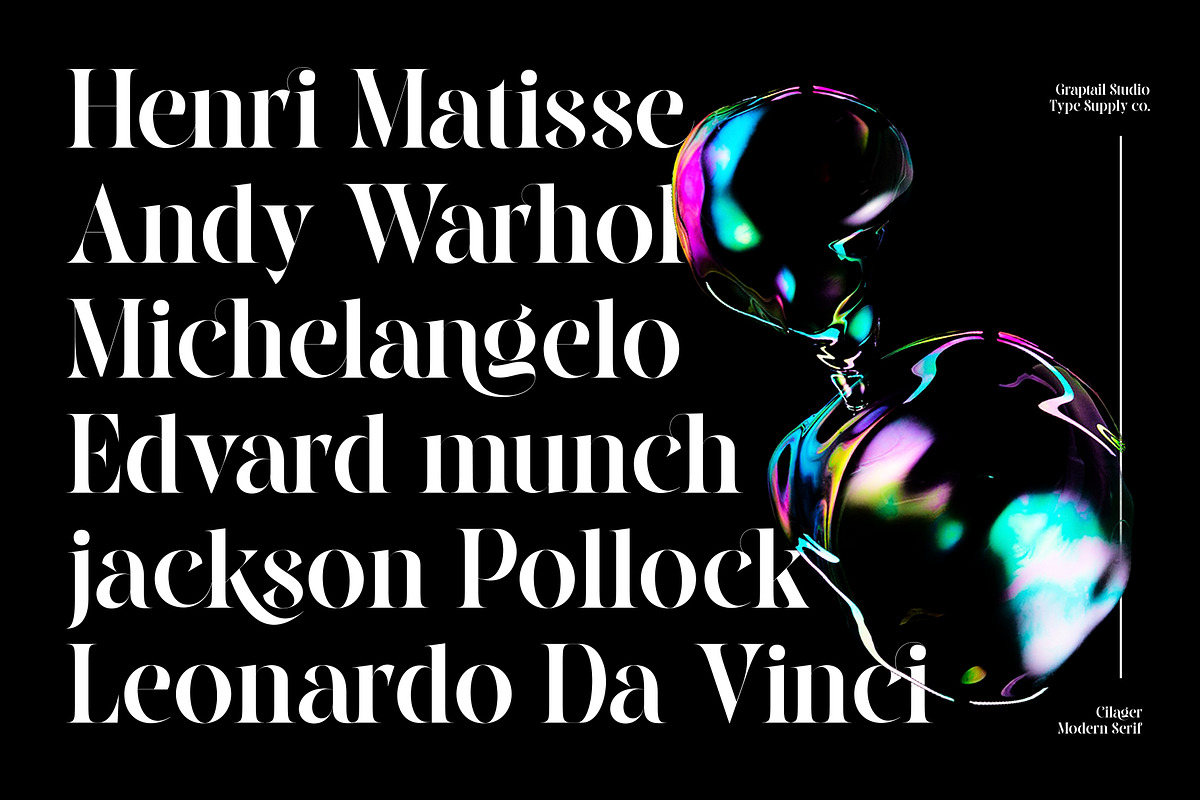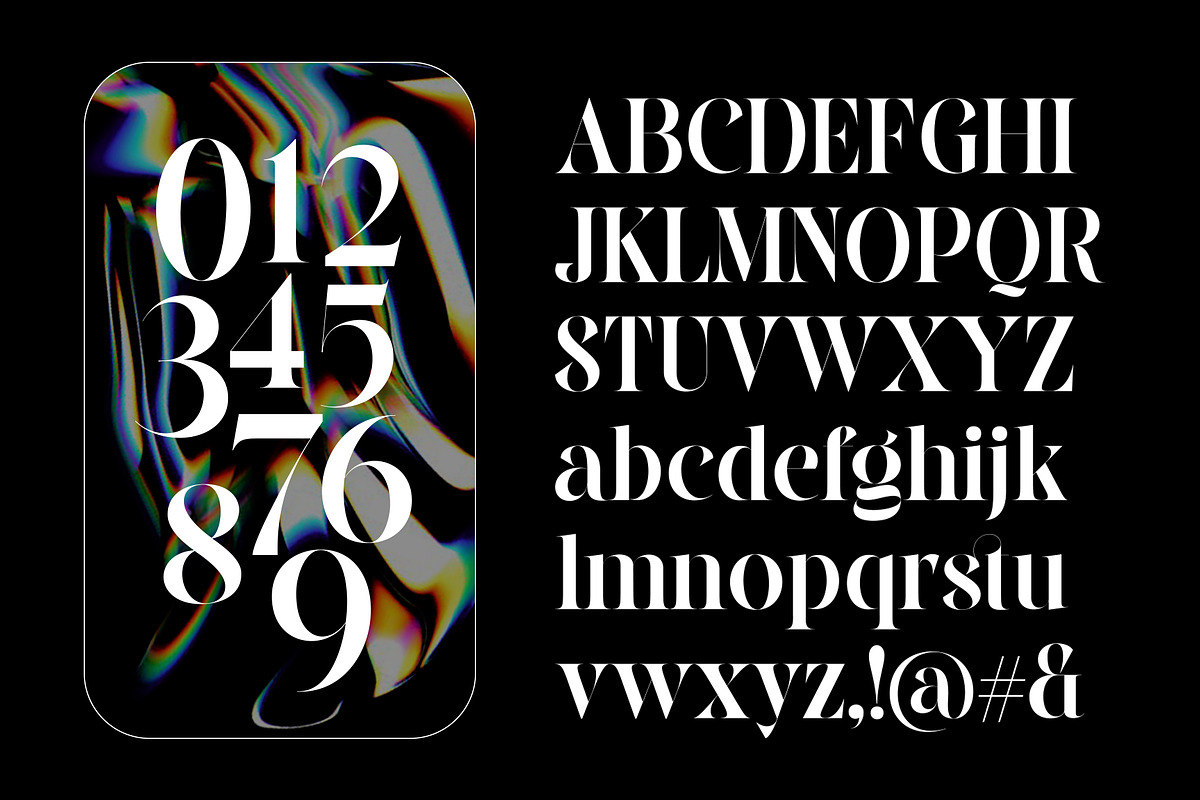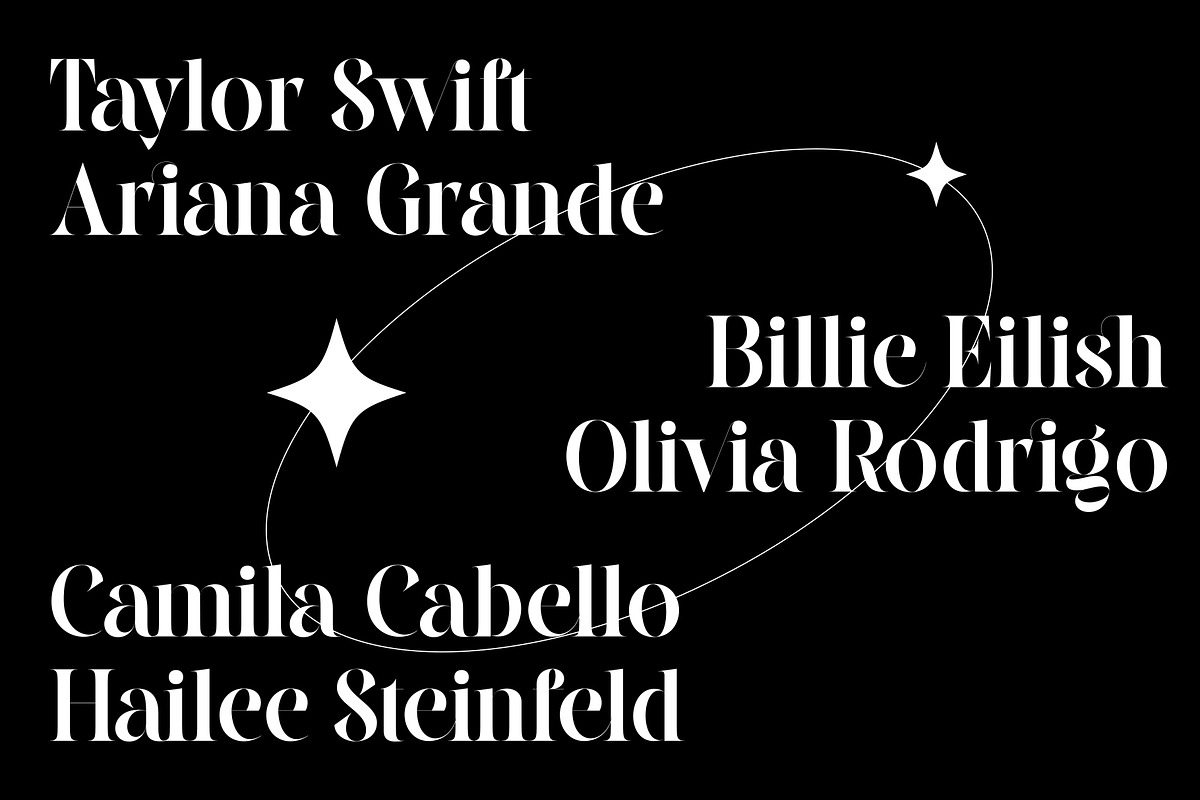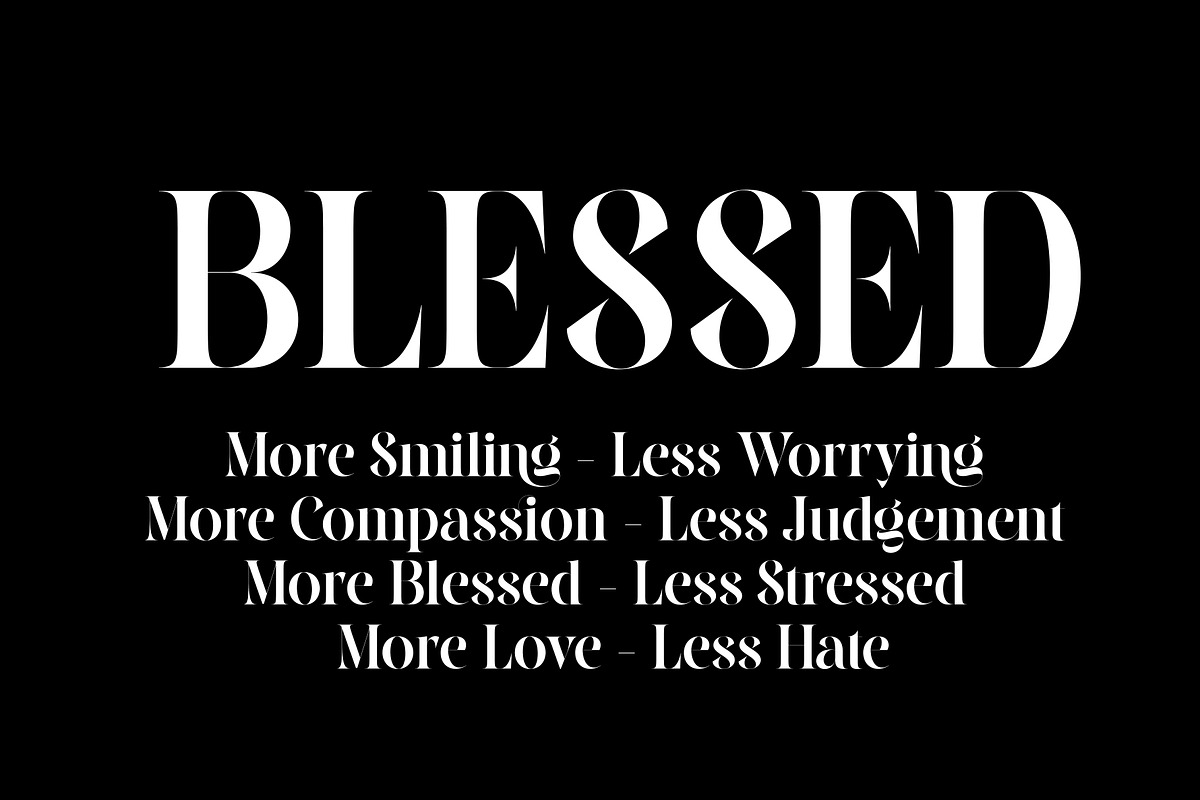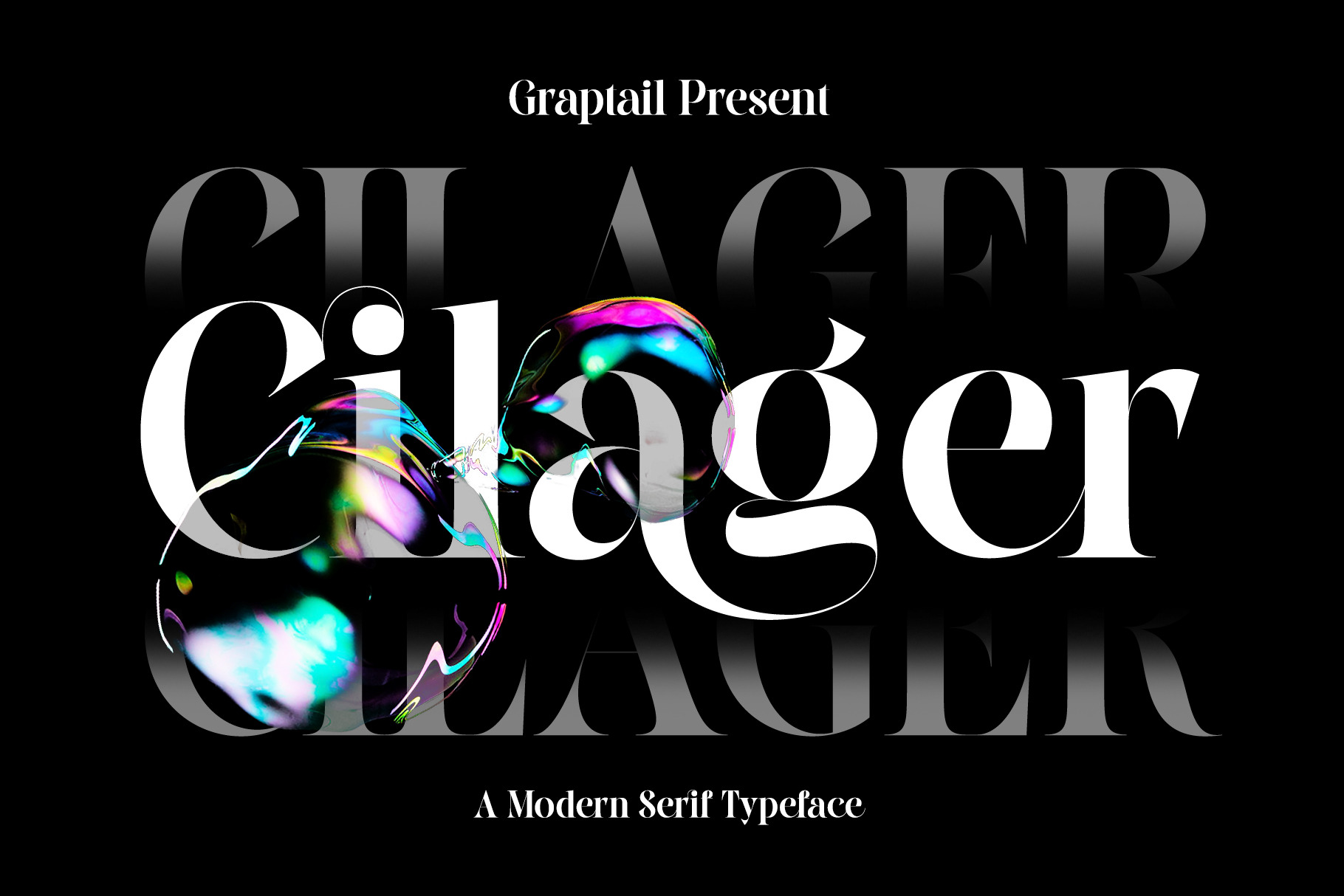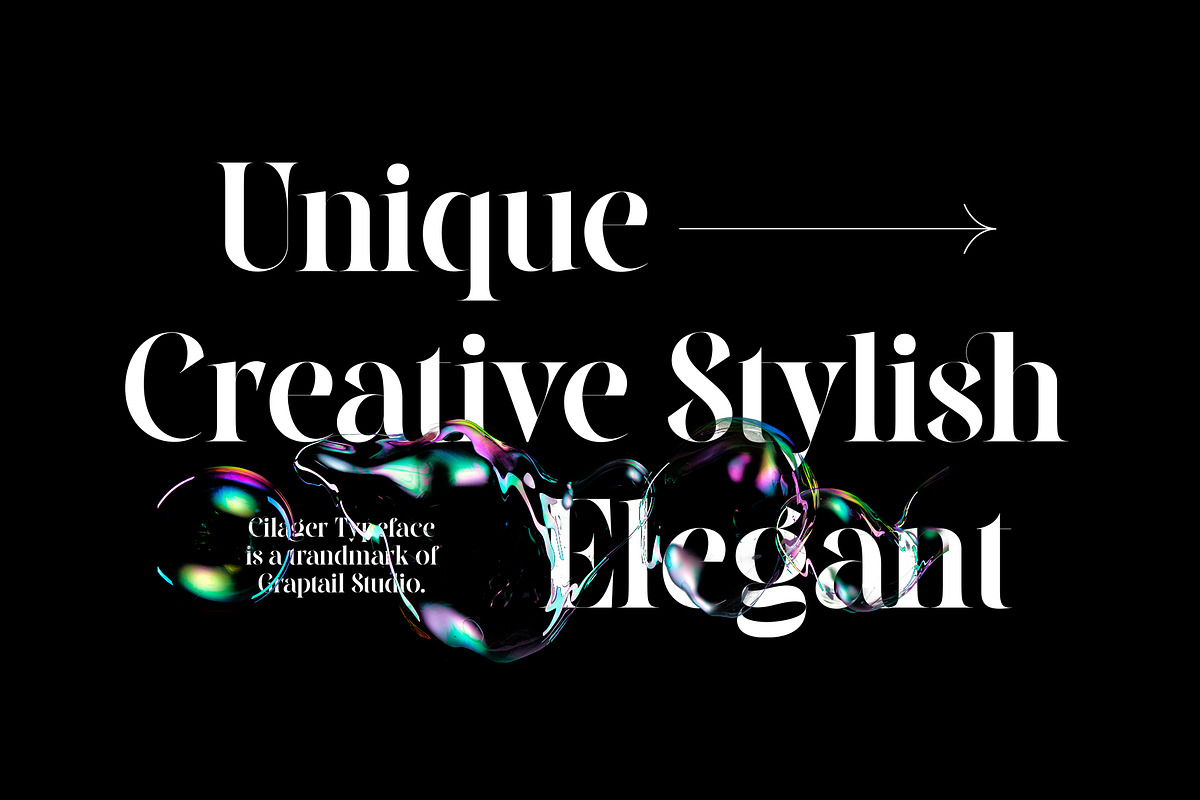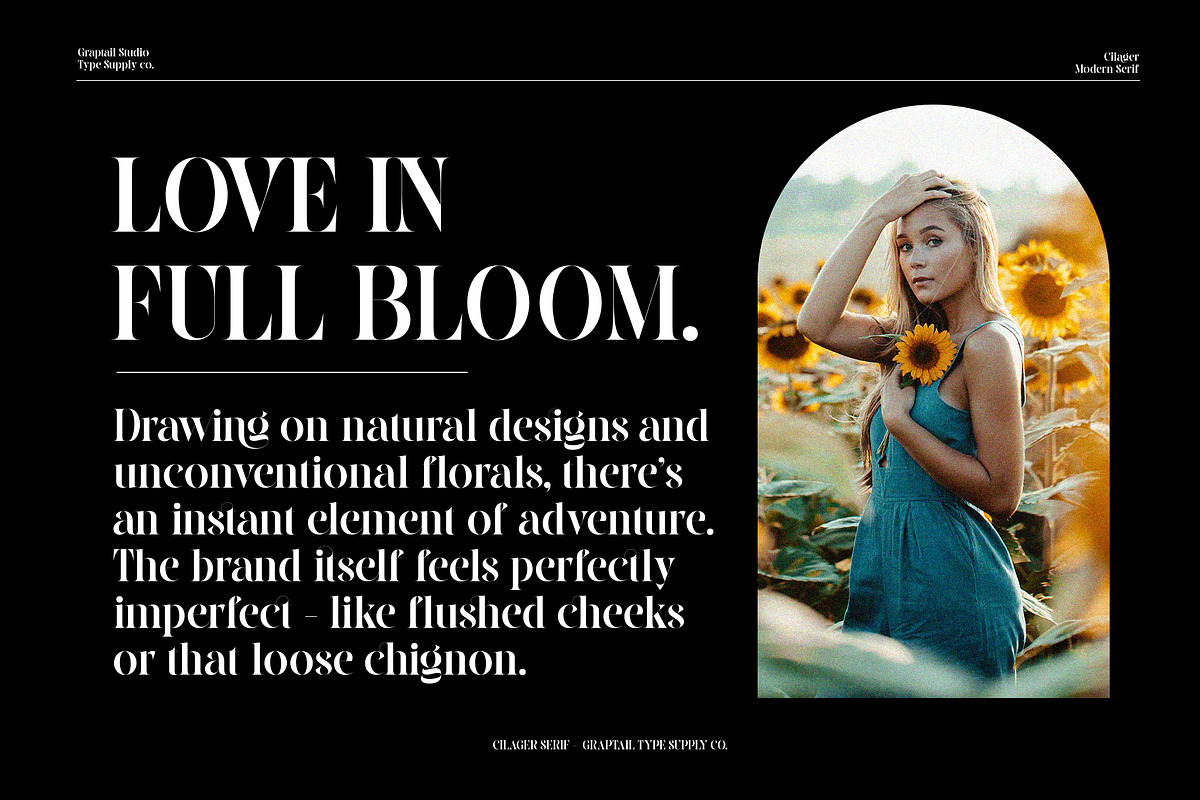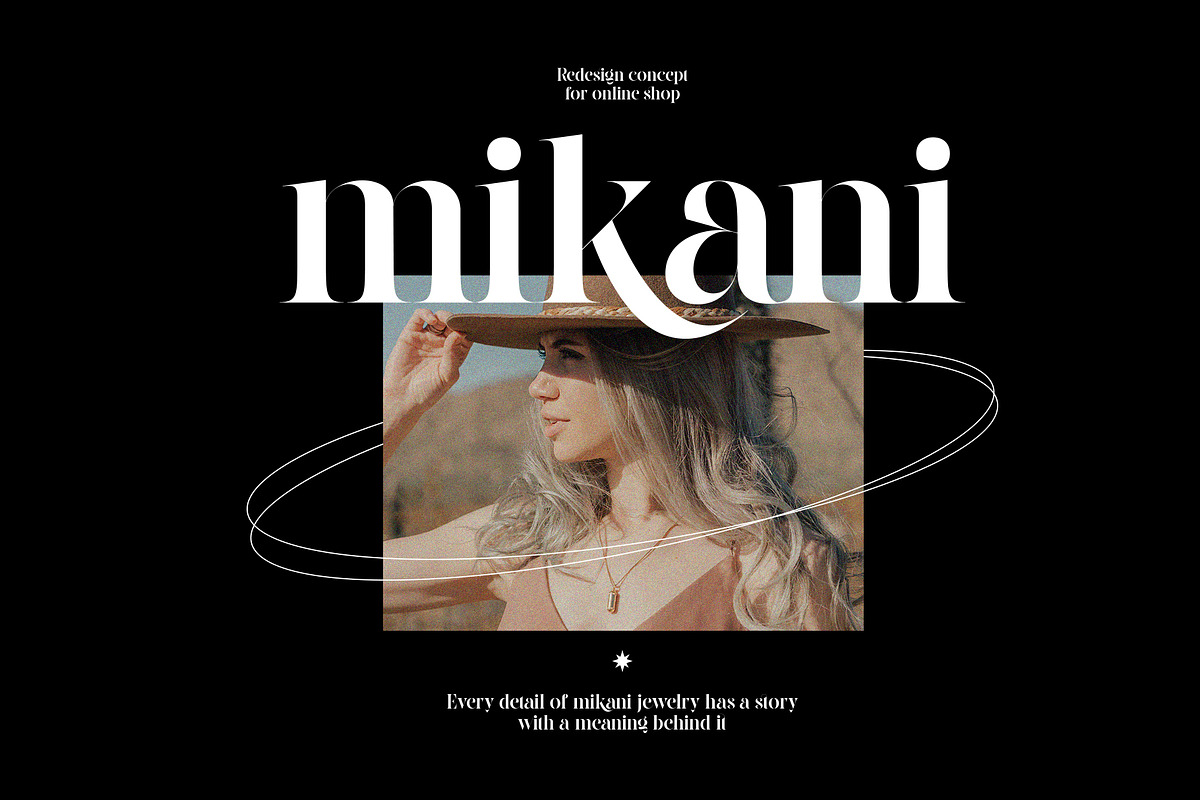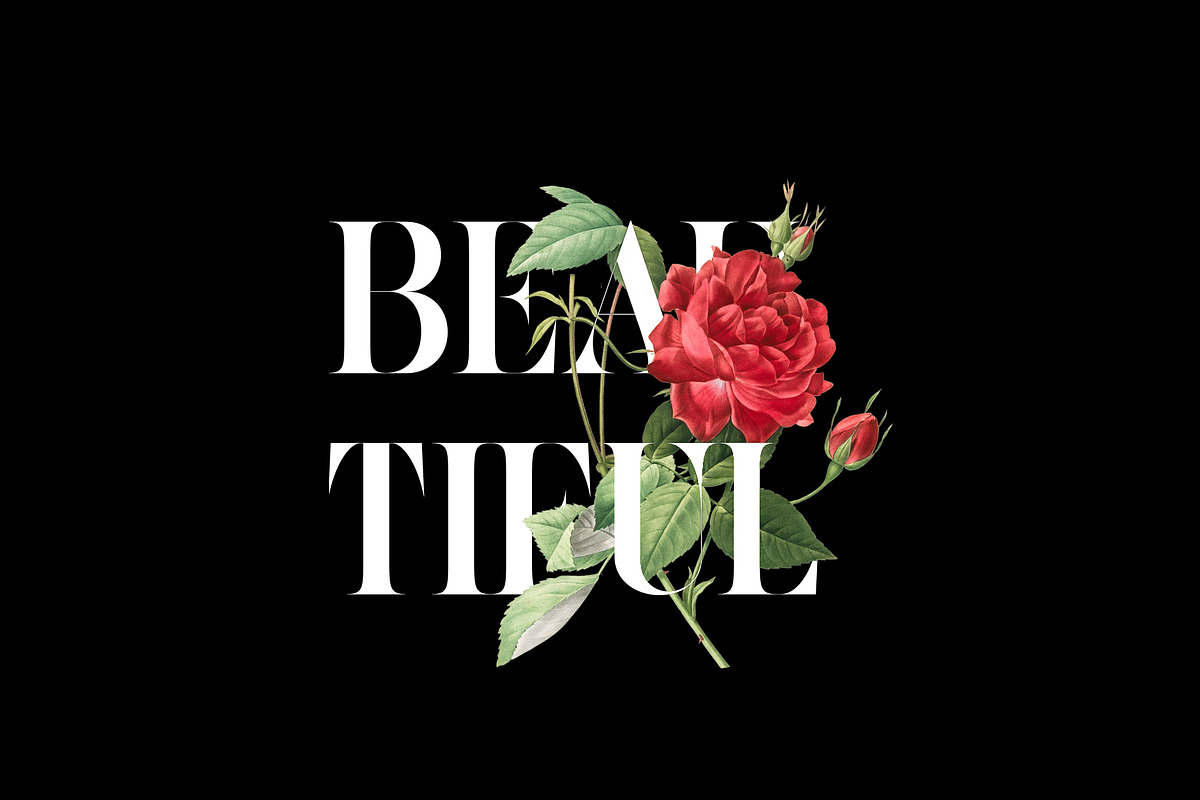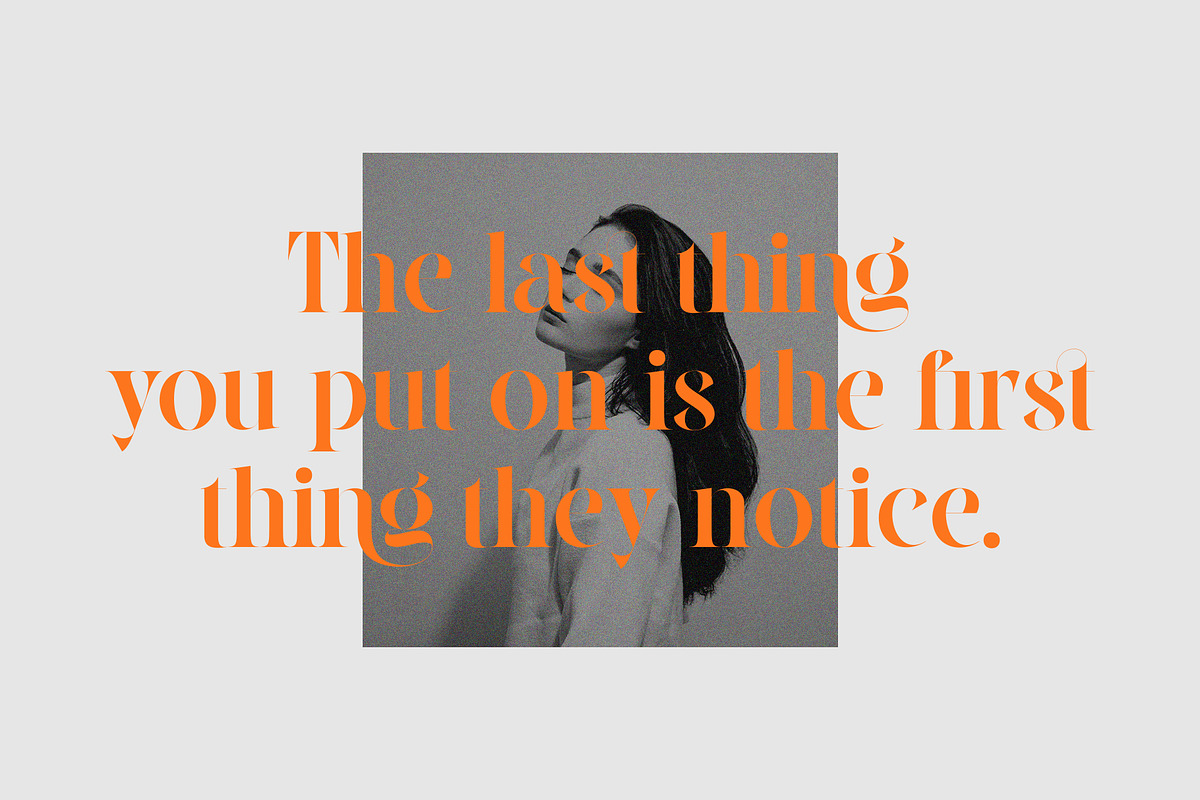
Cilager - Modern Serif Typeface
Cilager is a Modern Serif Typeface that gives a romantic feel to every curve. With 26 Ligatures which are included, it is very helpful in creating the title of each of your project such as Logos, greeting cards, quotes, posters, branding, business cards, postcards, movie titles, blog headers, art quotes, typography, magazines and more.
- All Alternates
- Discretionary Ligatures
- Oldstyle Figures
- Lining Figures
- Localized Forms
- Superscript
- Fractions
- Ordinals